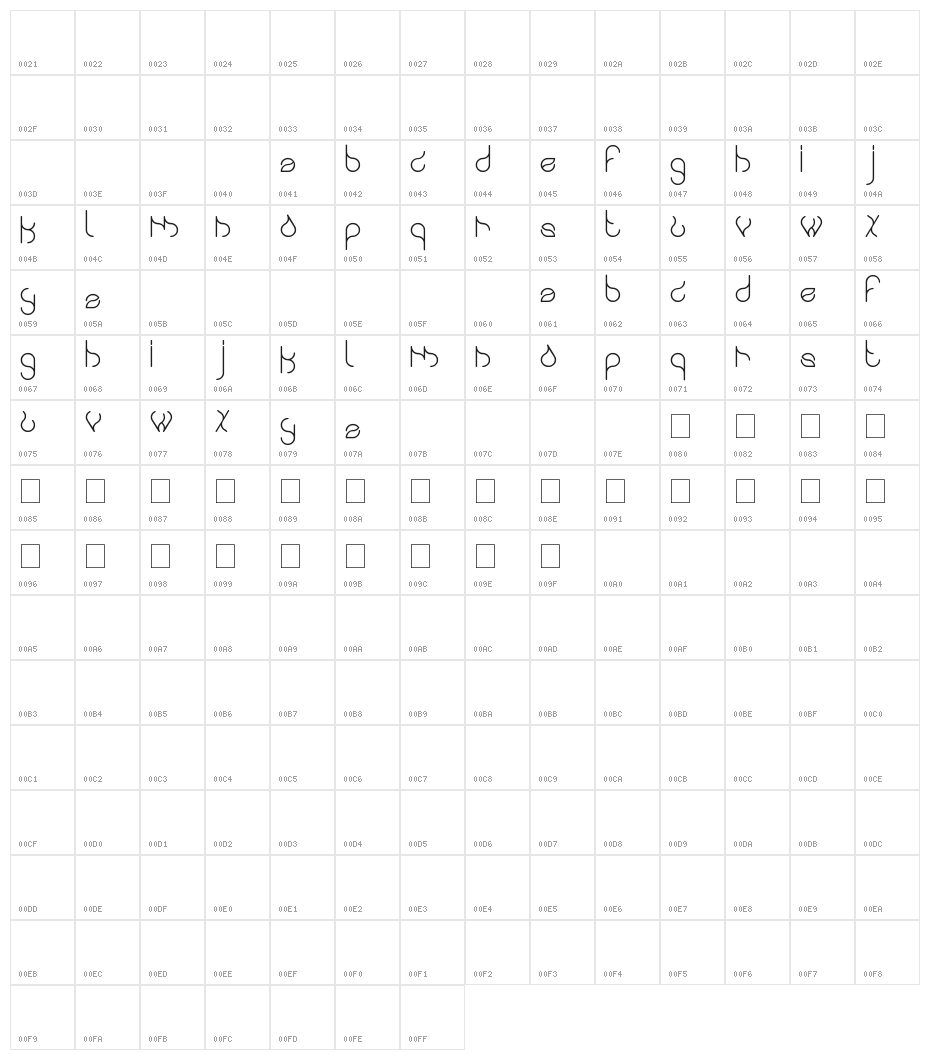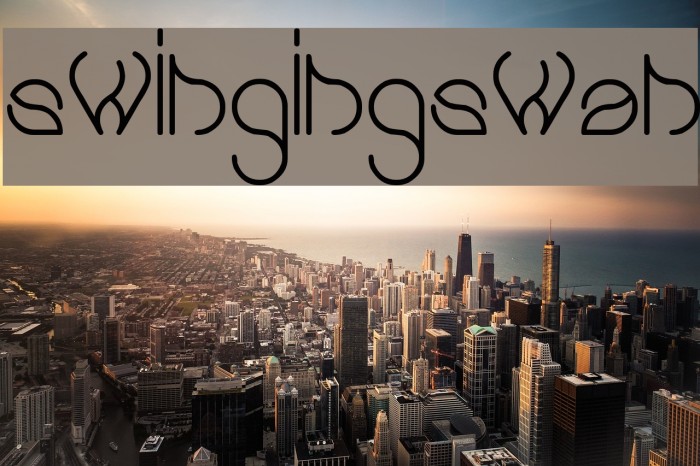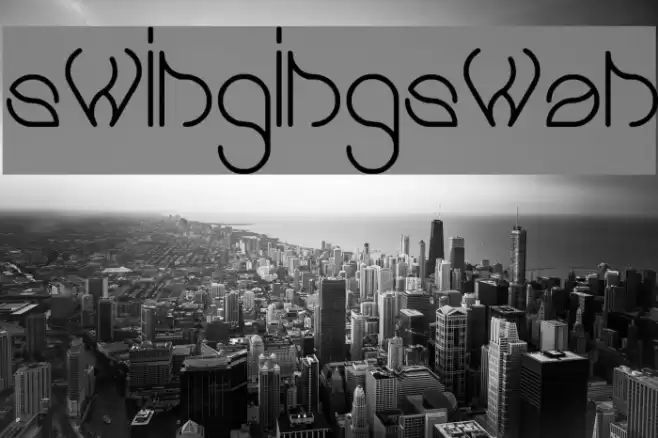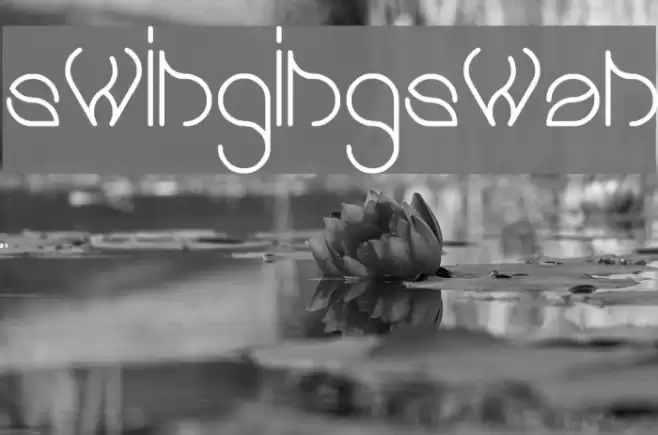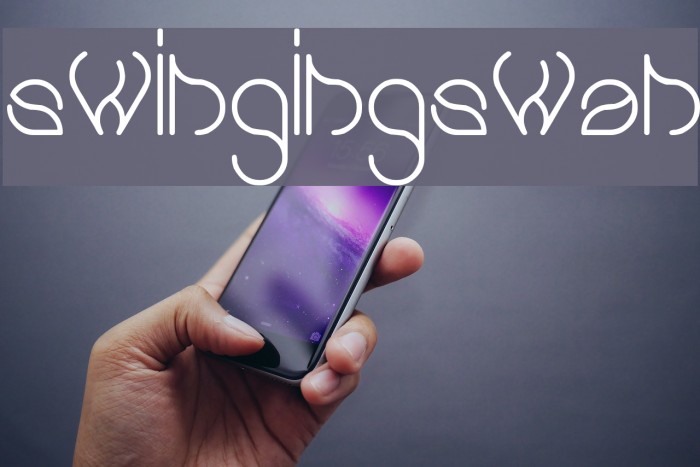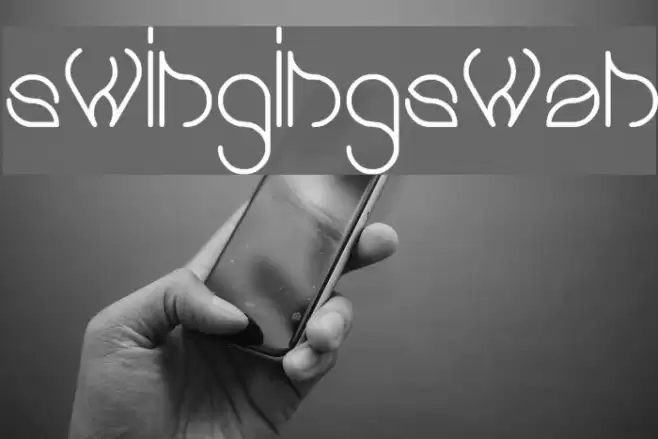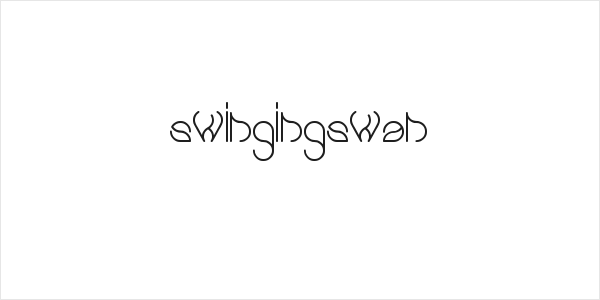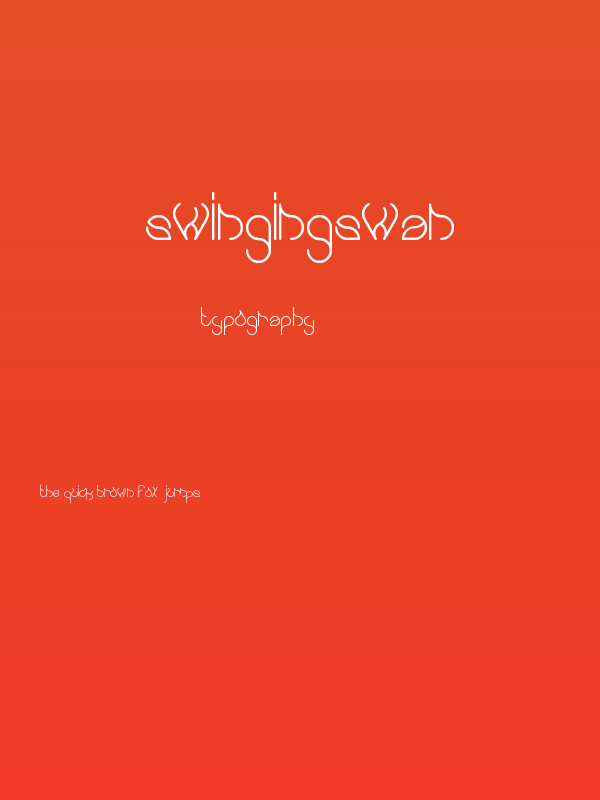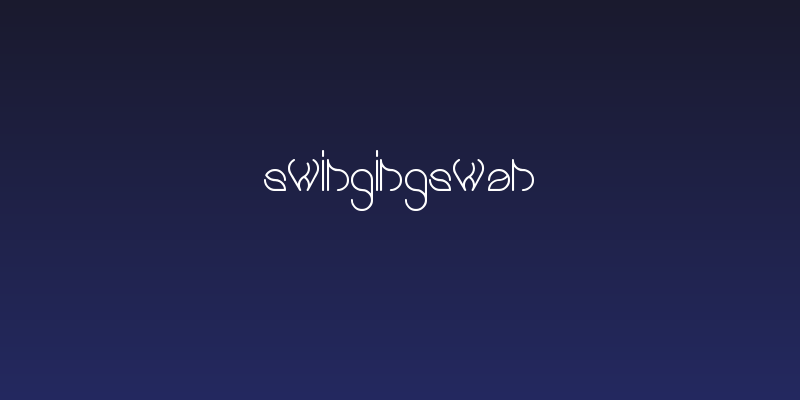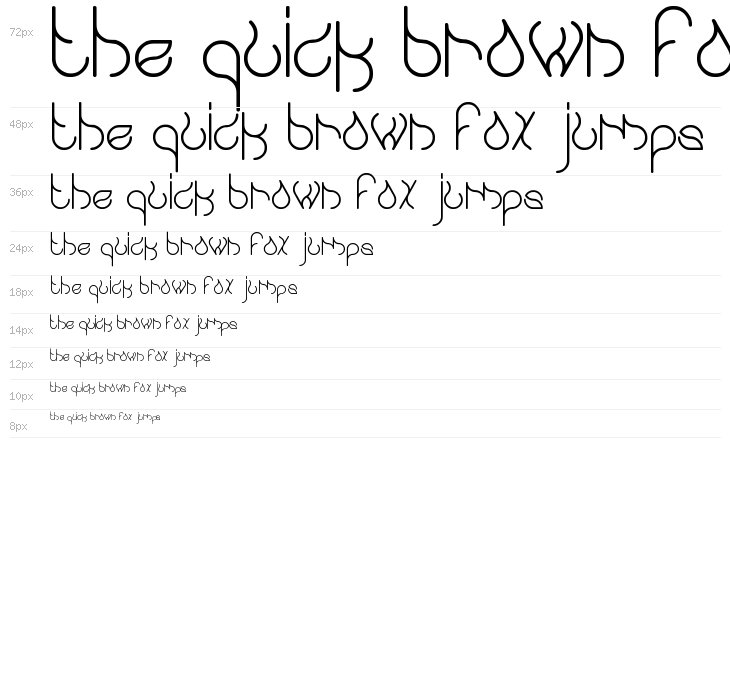
swingingswan Font
swingingswan Description
This font features a unique and artistic design with a modern twist. The characters are crafted with a continuous, flowing line that creates a sense of movement and fluidity. Each letter is distinct, yet they all share a cohesive style that makes the font stand out. The uppercase and lowercase letters maintain a consistent height, while the numbers and special characters are designed to complement the overall aesthetic. The font's thin strokes and open forms give it an airy and elegant appearance, making it suitable for creative and contemporary projects.
| Proposed Projects | Ideal for branding, logos, artistic posters, and modern web design. |